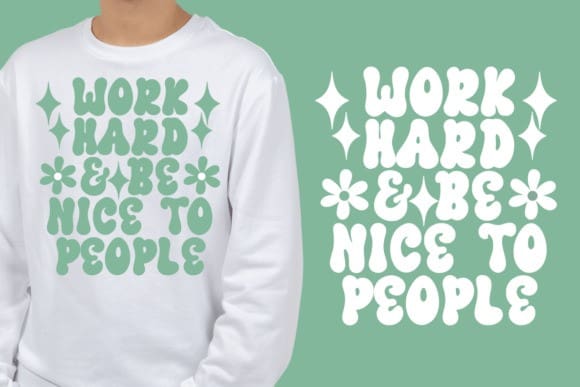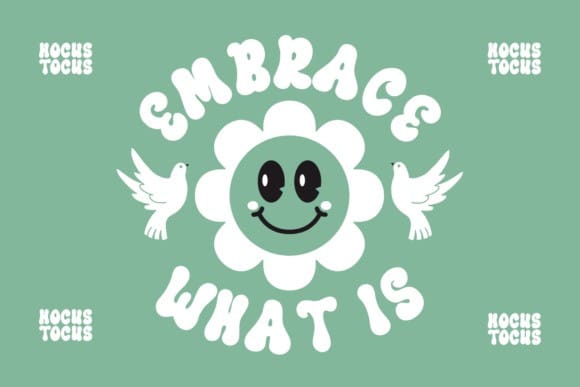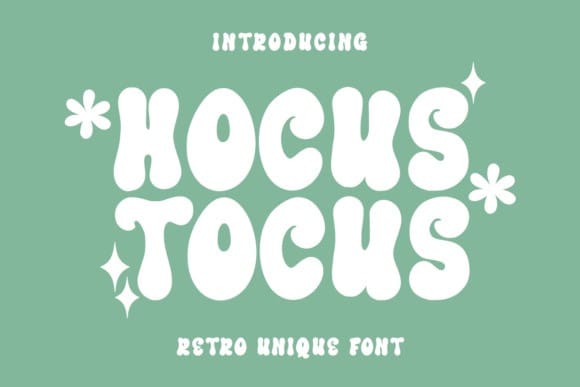
Hocus Tocus Font
Hocus Tocus Font is a retro unique font that is perfect for designs that need a playful, cheery accent. HocusTocus is suitable for book covers, posters, packaging, merchandise, logotypes,t -shirt, totebag, tumblr and many more!